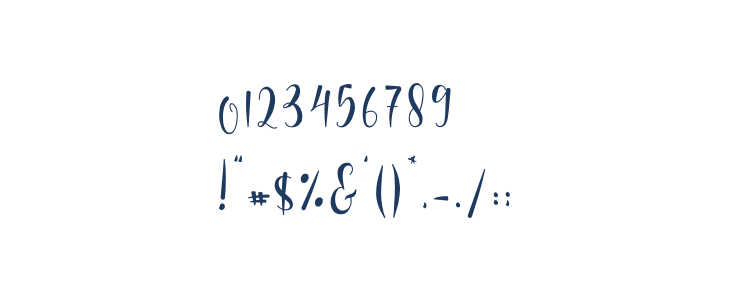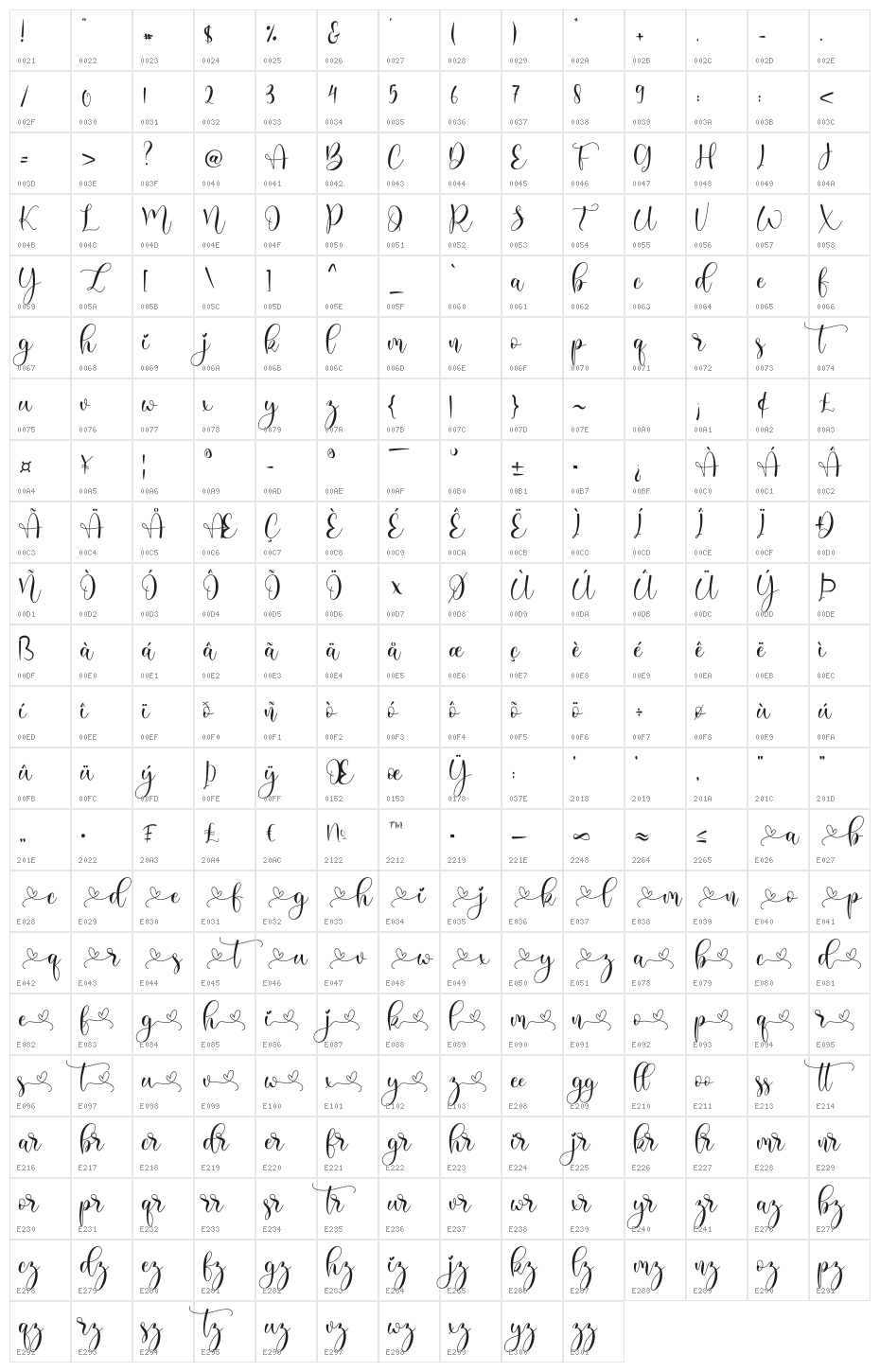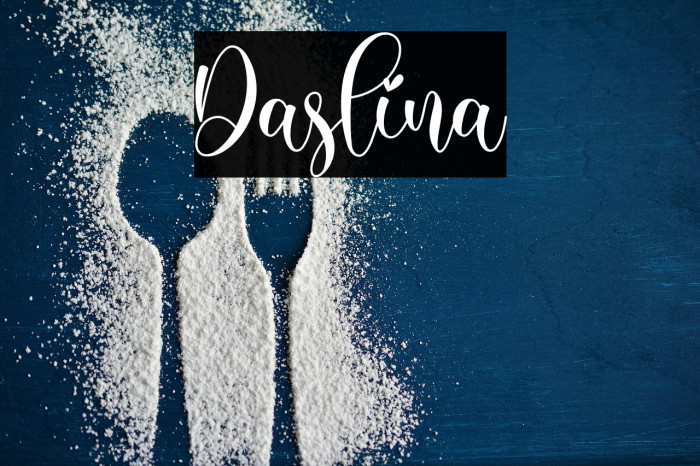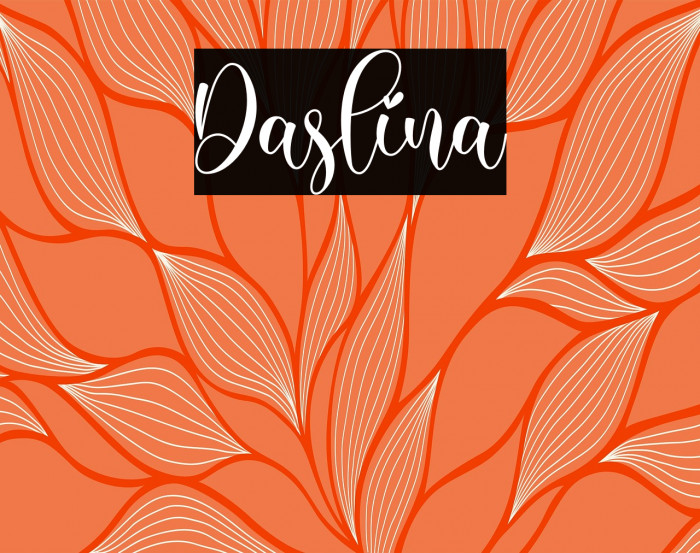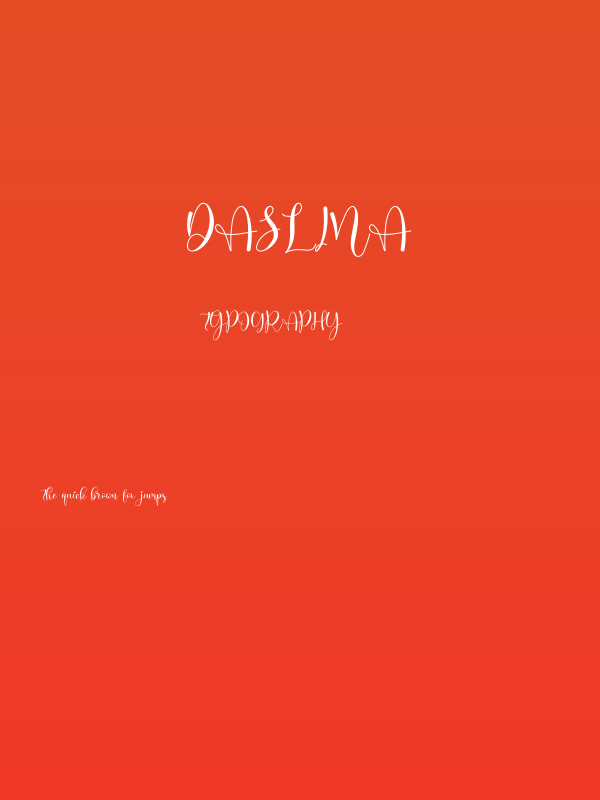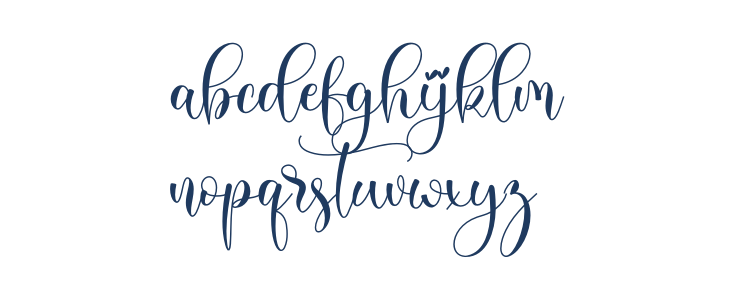
Daslina Font
Daslina Description
This font exudes elegance and sophistication with its flowing, cursive script style. Each letter is crafted with intricate loops and swirls, giving it a graceful and artistic appearance. The uppercase letters are particularly ornate, featuring elaborate flourishes that add a touch of drama and flair. The lowercase letters maintain a consistent style, with smooth curves and a slightly slanted orientation that enhances readability. The numerals and special characters are designed to complement the overall aesthetic, maintaining the same fluidity and charm. This font is perfect for projects that require a touch of elegance and creativity, such as wedding invitations, branding, and high-end product packaging.